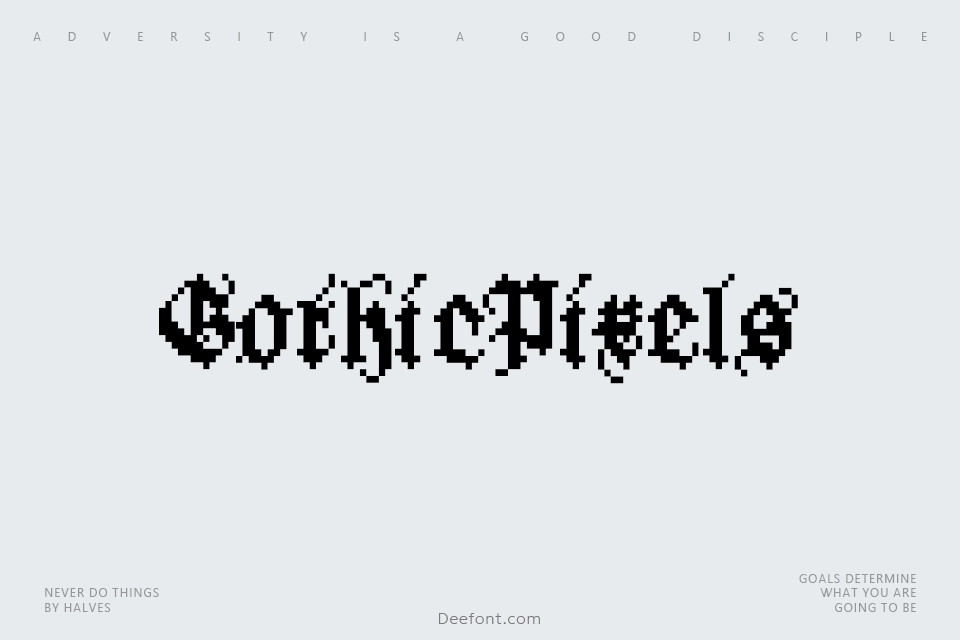
GothicPixels Font
GothicPixels is a bold, pixelated display font featuring medieval blackletter characteristics with a modern digital aesthetic. This bitmap typeface showcases ornate uppercase letters with intricate details reminiscent of traditional Gothic script, while maintaining clean, blocky lowercase forms. Ideal for projects requiring historical yet contemporary visual impact, it combines retro pixel artistry with decorative elegance, making it perfect for video game design, posters, digital art, branding, and headlines that demand a unique blend of classic and modern sensibilities.